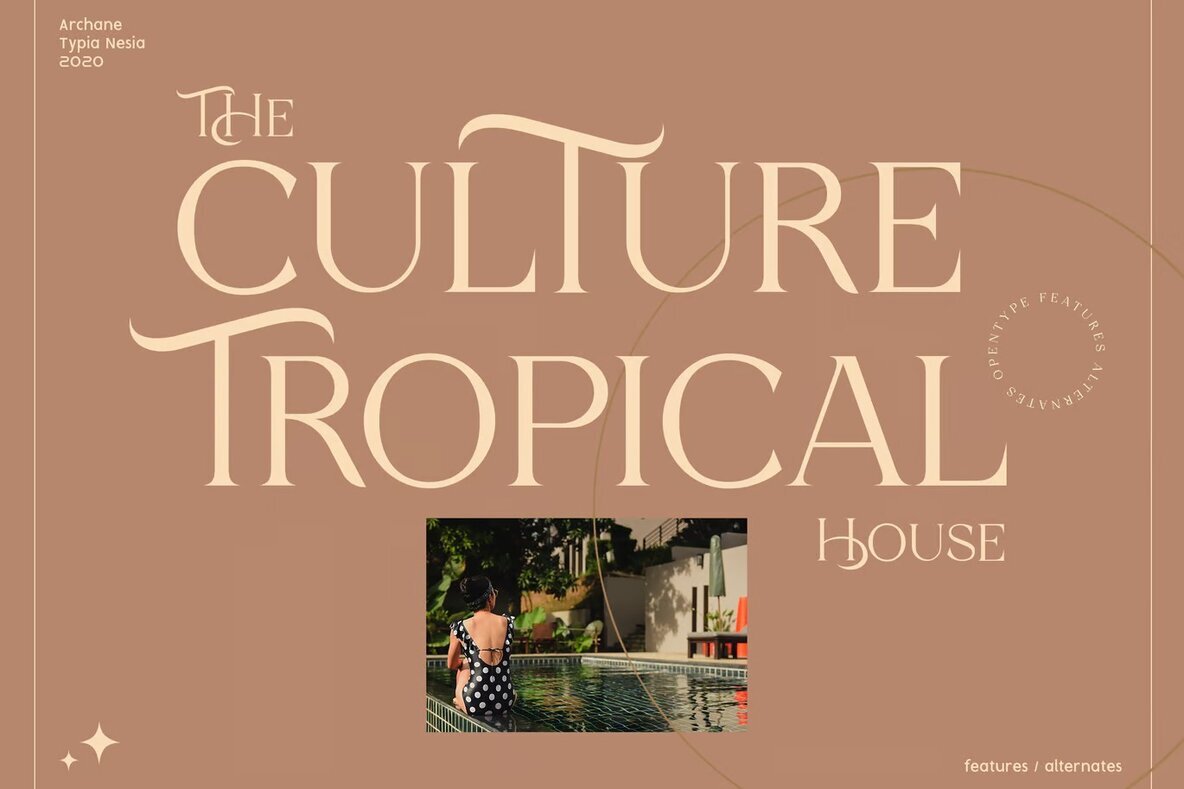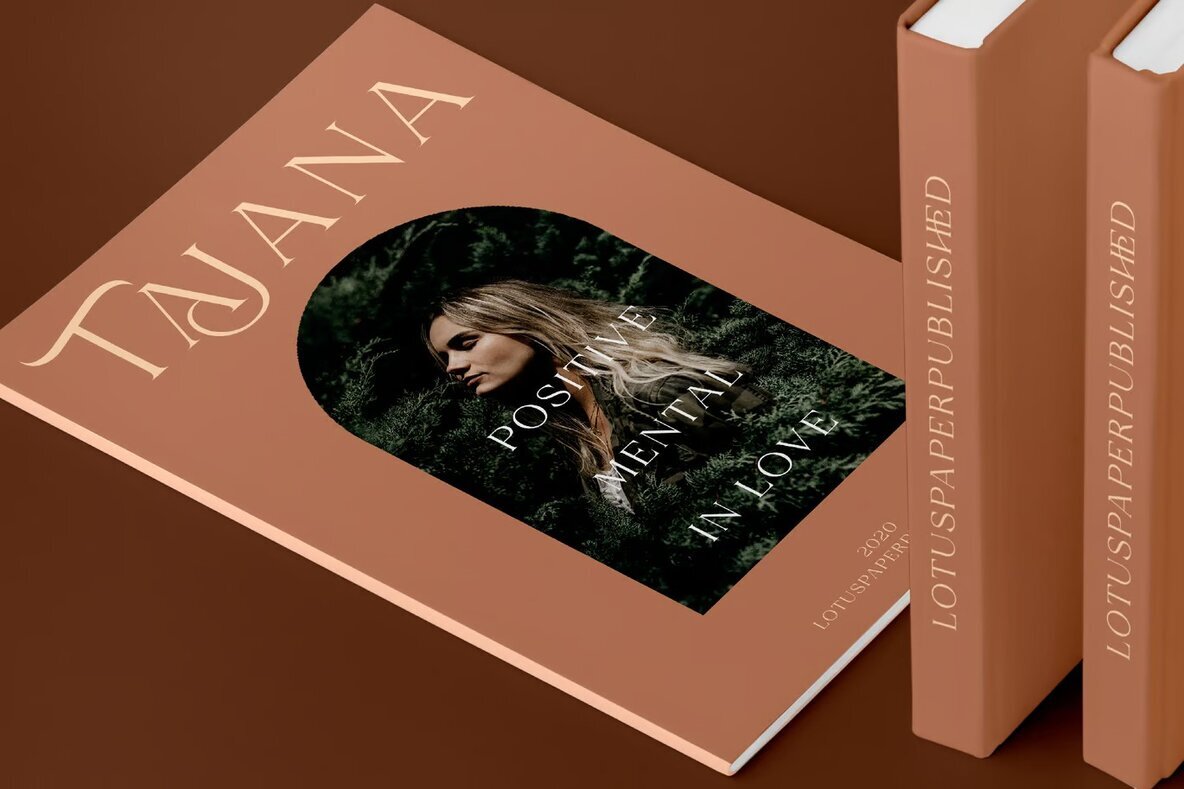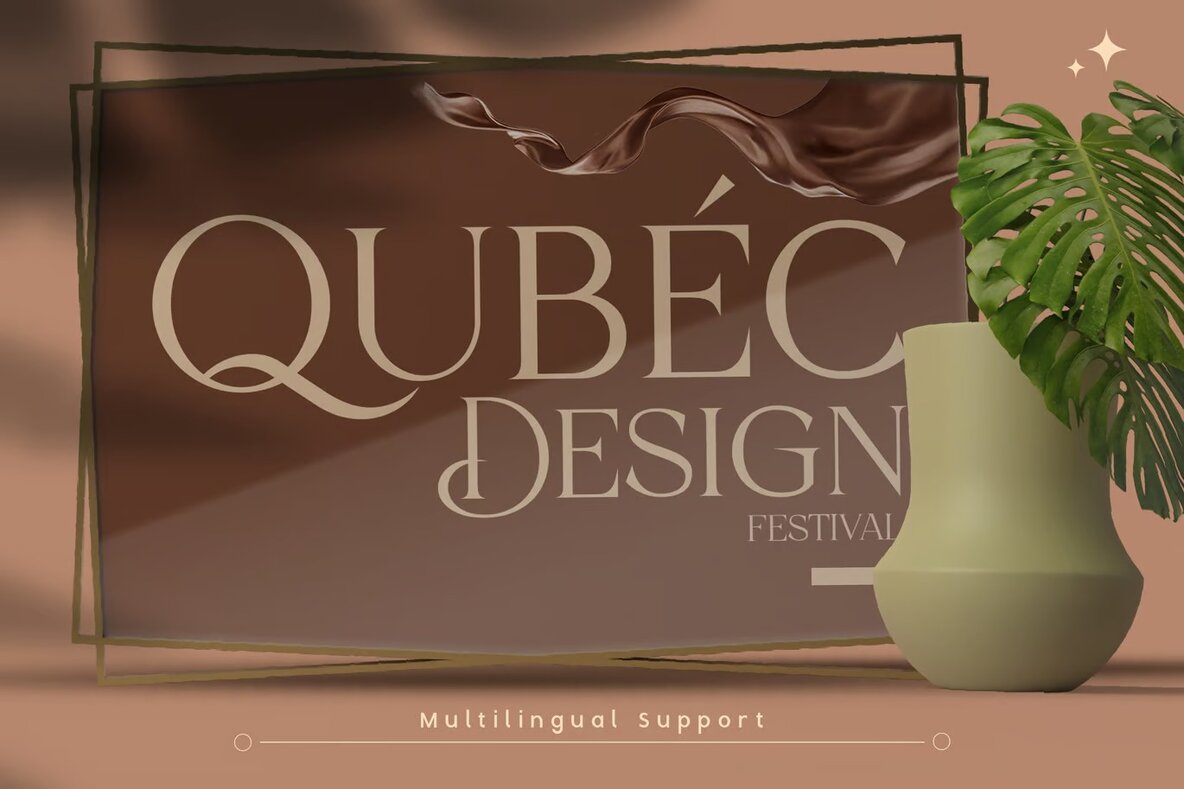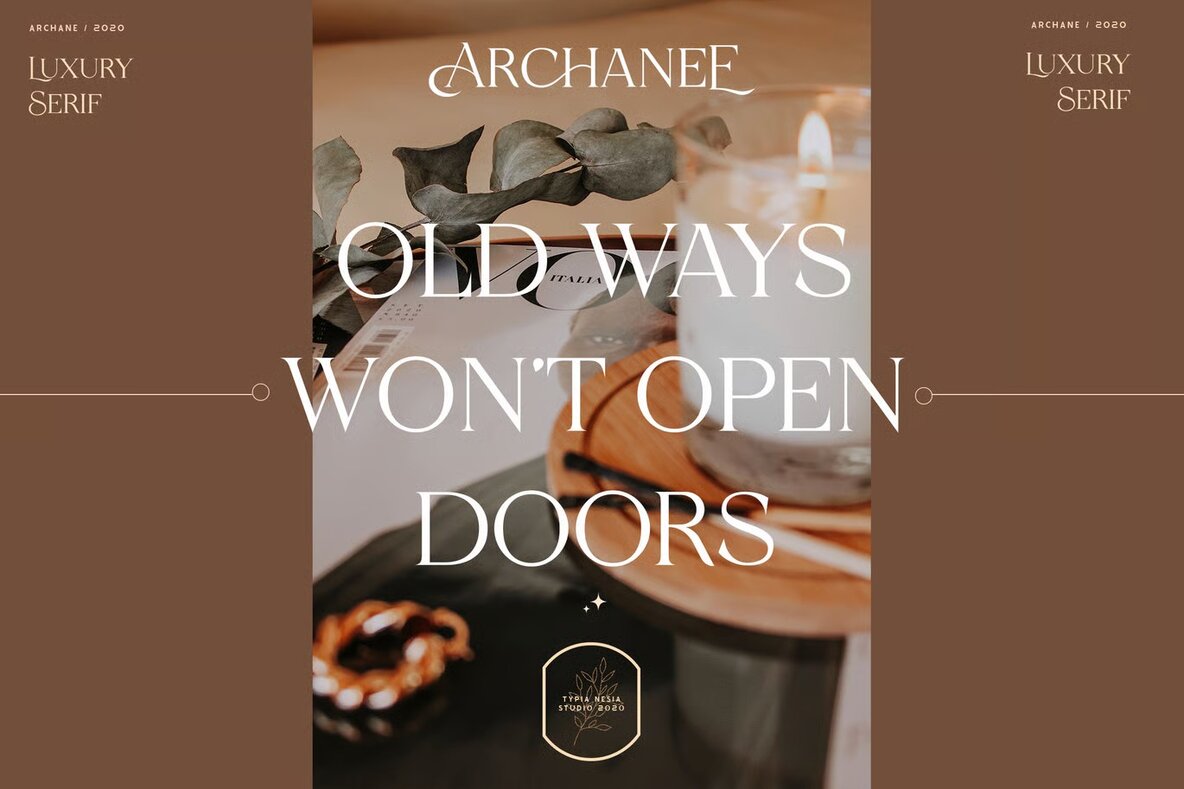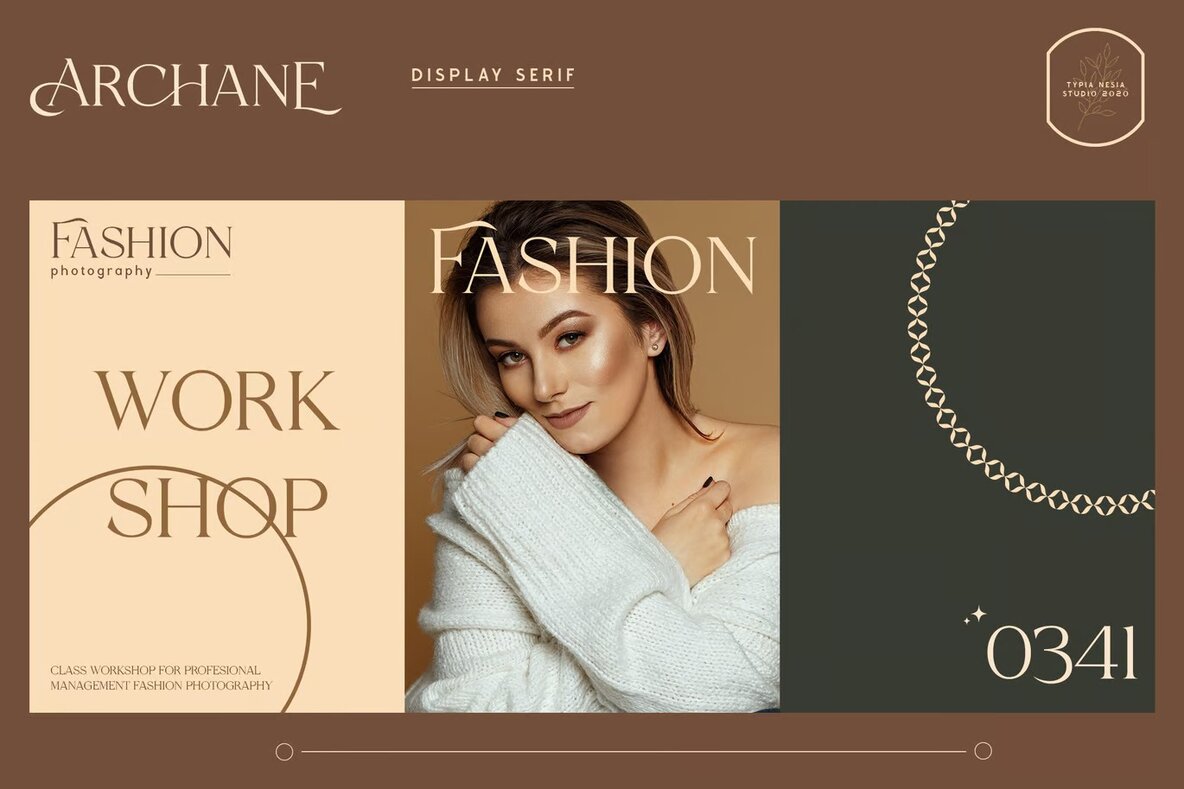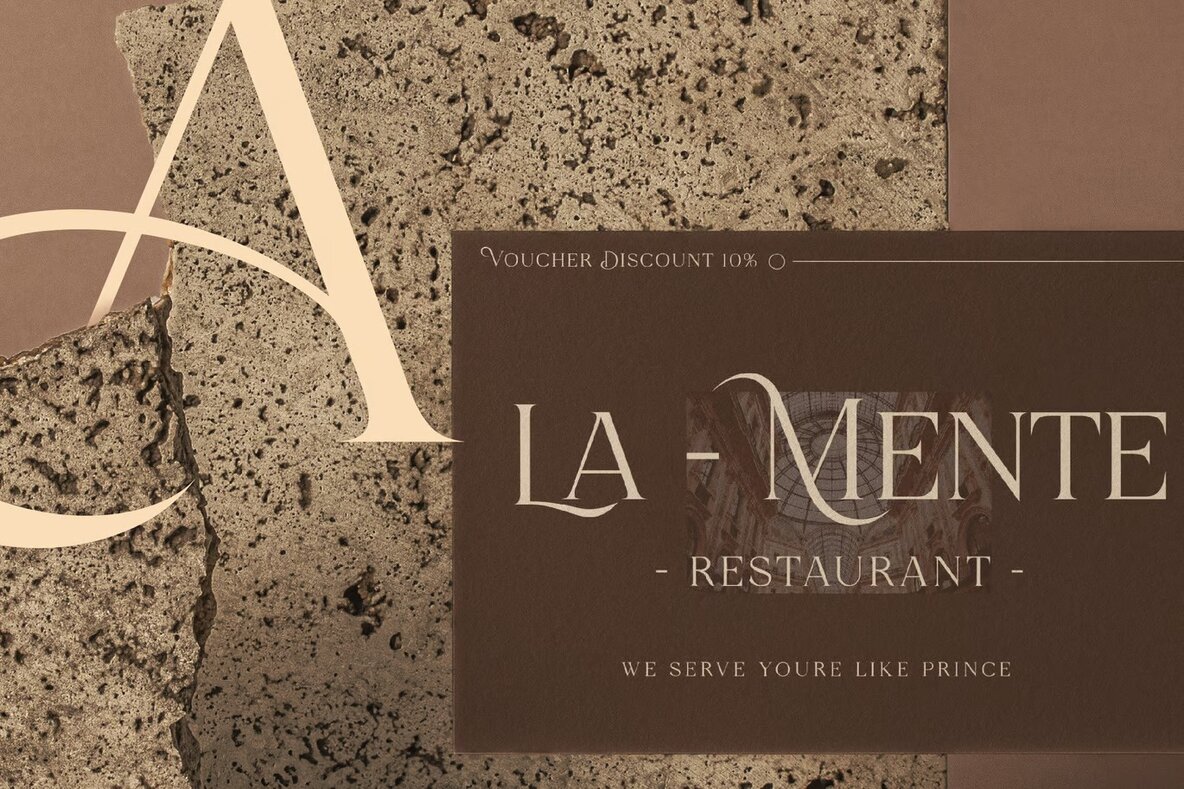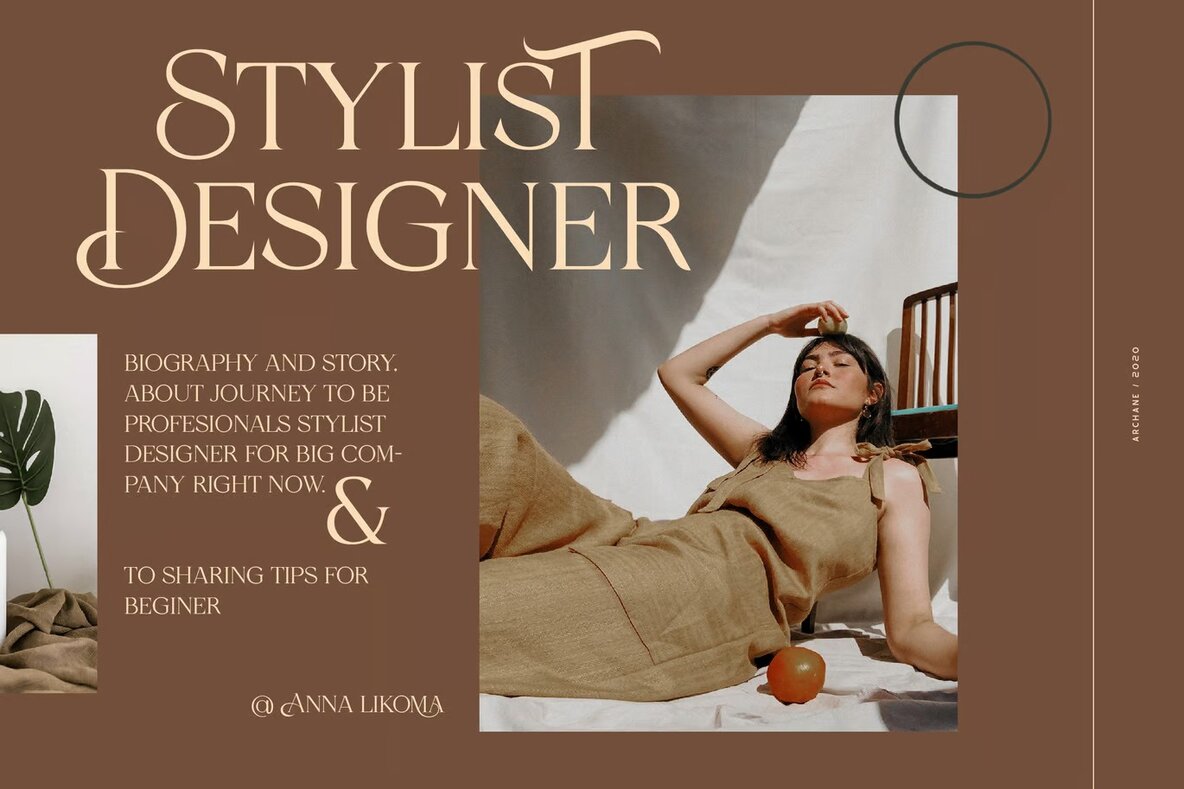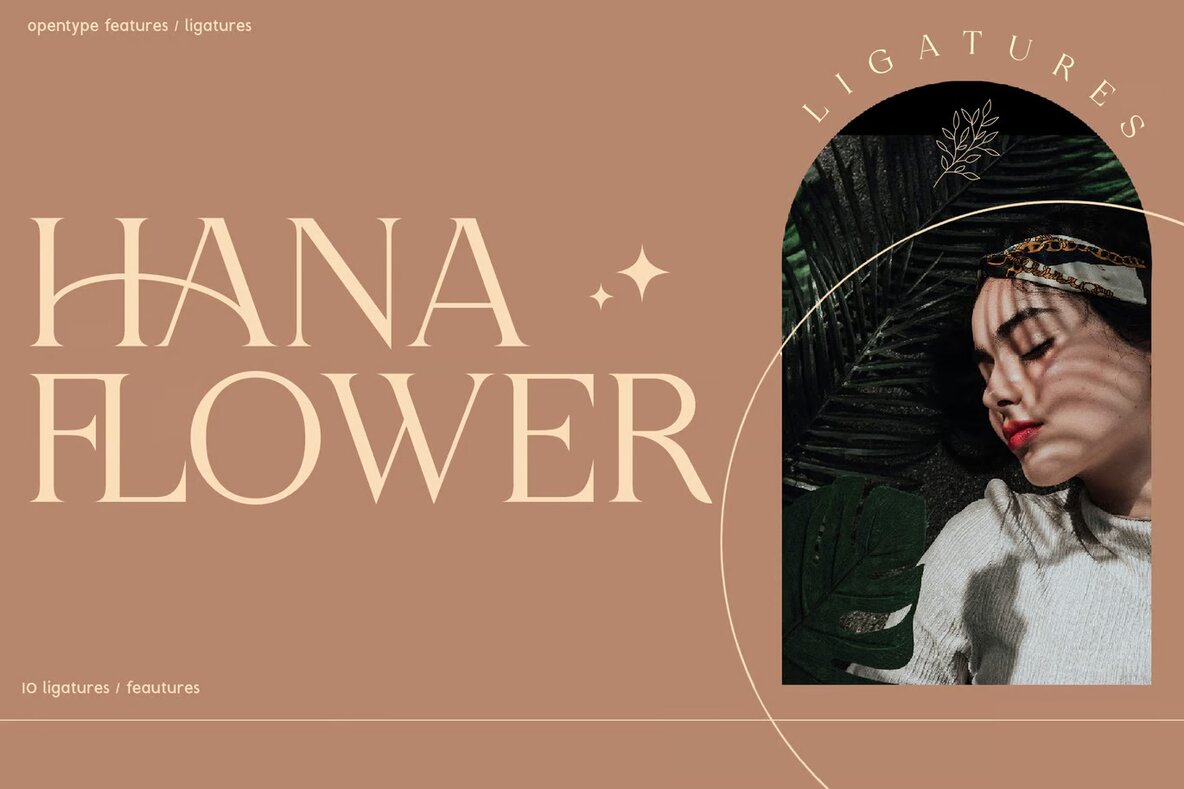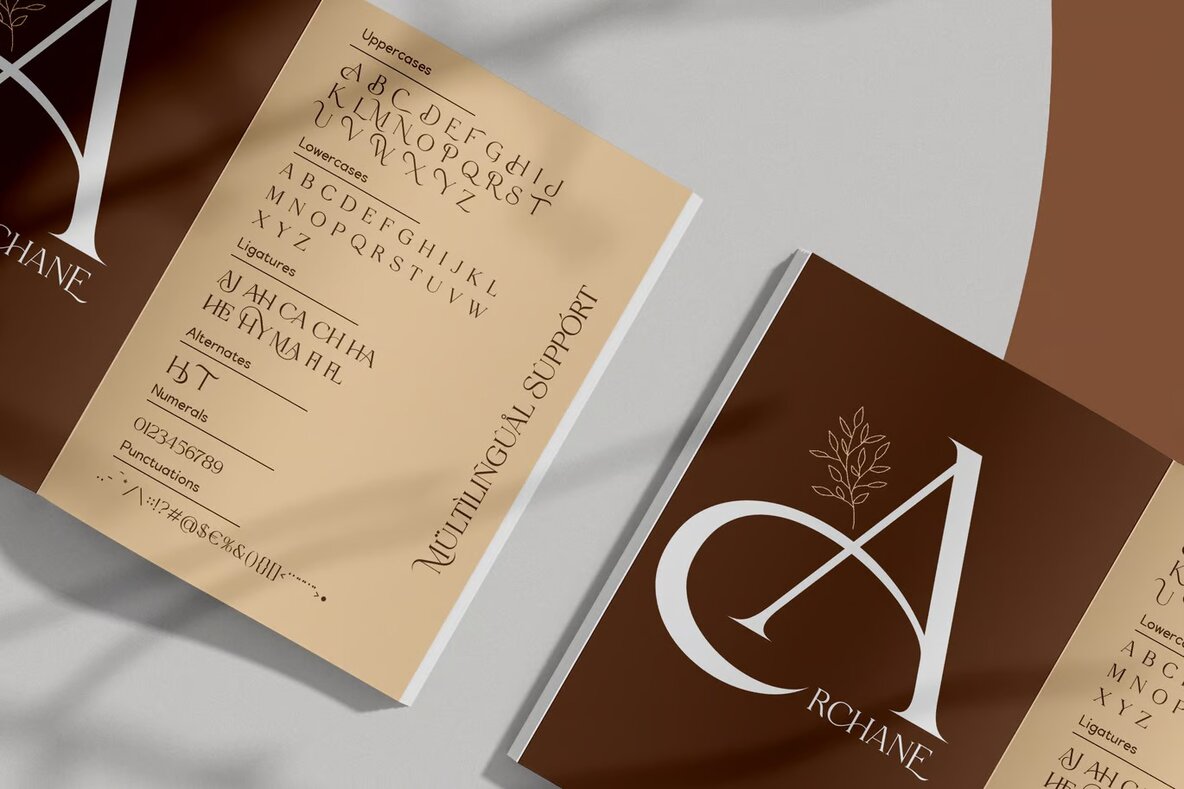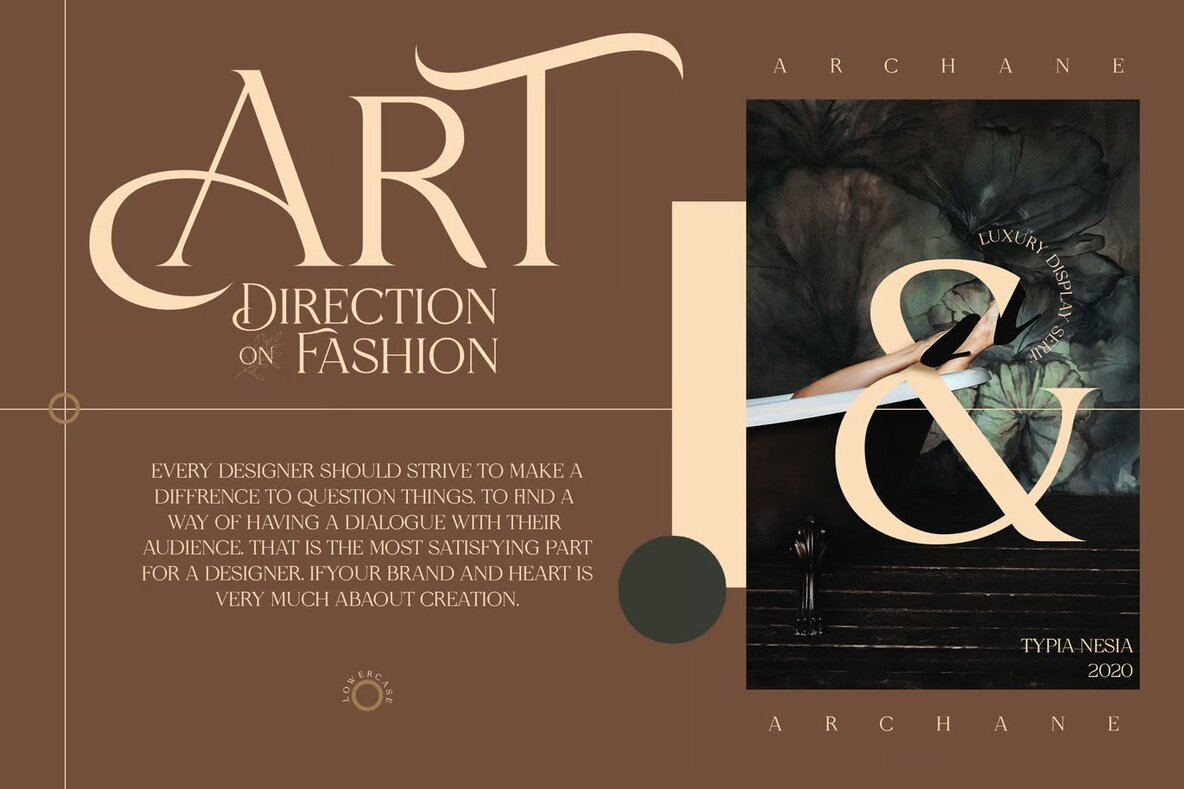
Archane Font
Archane
Archane is an elegant and luxurious feminine display serif font that perfectly suits various creative projects. Its sophisticated style makes it ideal for luxury logos, branding, classy editorial designs, and fashion promotions. Whether you're working on boutique branding, modern advertising designs, or stylish stationery, Archane will add a touch of class to your work.
This distinctive serif font is also excellent for card invitations, art quotes, home décor, and book or cover titles. It's designed to complement special events and eye-catching blog designs. Archane's versatility and elegance make it a must-have choice for any project where a touch of luxury and femininity is desired.